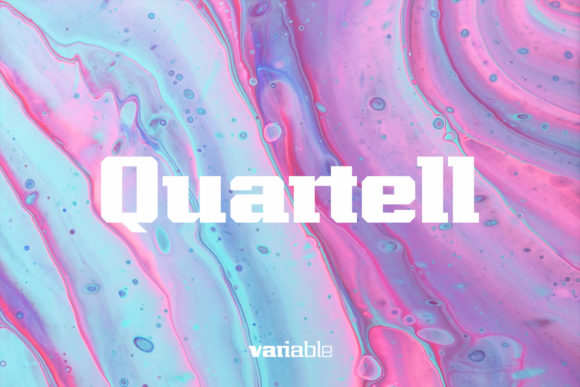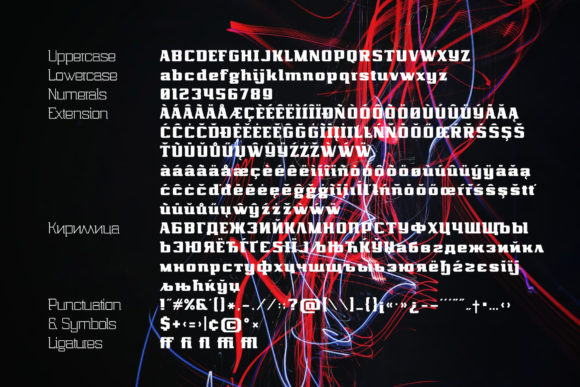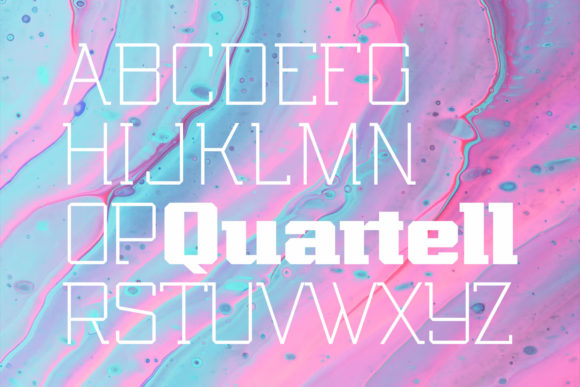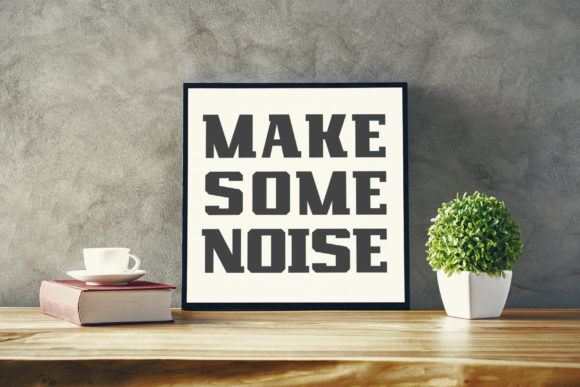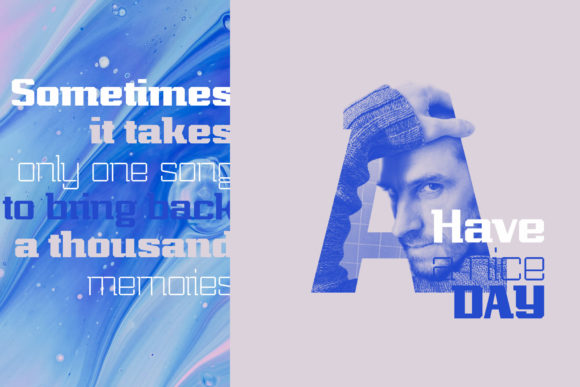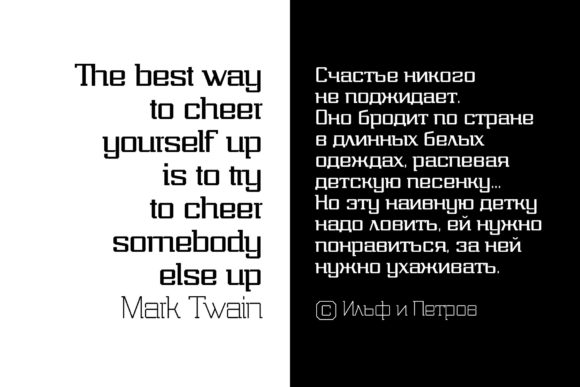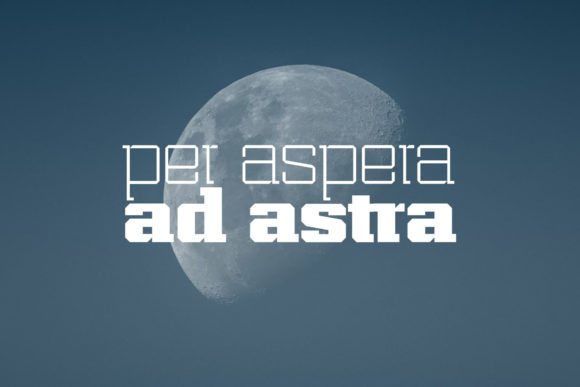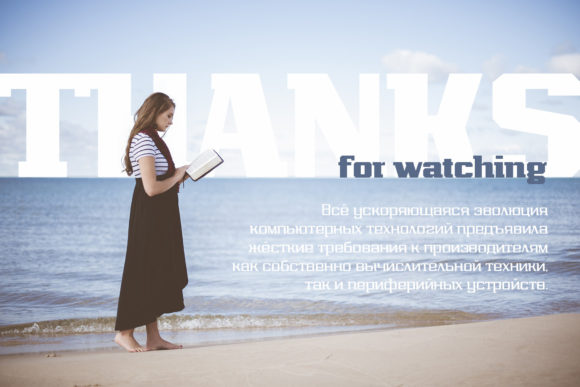
Quartell Variable
Quartell Variable: An Awesome Slab Serif Font
Quartell Variable is an amazing slab serif font known for its unique style and versatility. This typeface is perfect for creating bright captions and unforgettable logos, making it a valuable addition to any designer’s toolkit.
Key Features of Quartell Variable
• Awesome Design: Offers a striking and memorable look suitable for impactful designs.
• Slab Serif Structure: Features thick, rectangular serifs typical of slab serif fonts.
• Unique Style: Combines creativity with functionality, which makes it stand out in various uses.
• Versatile Application: Ideal for bright captions, logos, and a wide range of creative projects.
Ideal Uses for Quartell Variable
Quartell Variable’s unique characteristics make it particularly well-suited for:
When incorporating Quartell Variable into your designs, consider these tips:
• Use for headlines or short blocks of text to showcase its unique and bold style.
• Utilize its versatility across various creative projects to enhance visual appeal.
Quartell Variable is an excellent choice for designers looking to add an awesome slab serif font to their collection. Its ability to create bright captions and unforgettable logos makes it stand out in the world of typography. Whether you’re working on logo designs, creating layouts for magazines, or developing content that requires a touch of creativity, Quartell Variable offers the perfect blend of style and functionality.
Furthermore, Quartell Variable’s unique design allows it to shine in various contexts. From vintage-inspired designs with a modern twist to more contemporary layouts that need a touch of uniqueness, this font can elevate your projects. Its striking yet functional style works particularly well in designs that require a thoughtful and engaging mood.
In conclusion, Quartell Variable is a font that truly captures the essence of creativity and impact in typography. Its ability to work well in both minimalist projects and more elaborate layouts showcases its flexibility. For those looking to add a touch of unique charm to their work, Quartell Variable can even enhance themed creations with its distinctive style. It’s the perfect choice for designers seeking to make a strong, stylish impact across a wide range of creative projects.